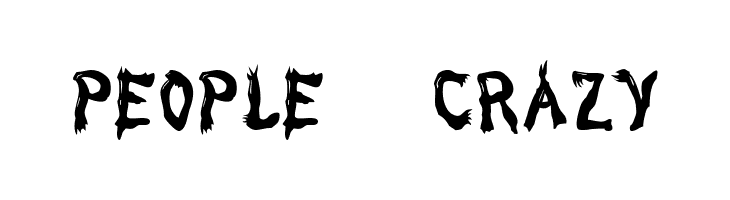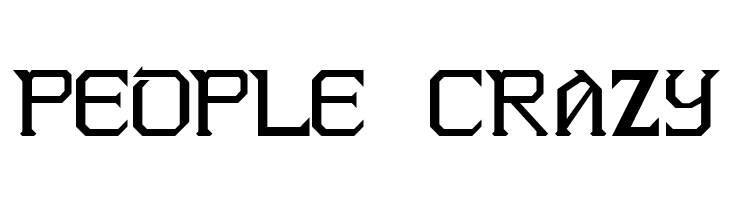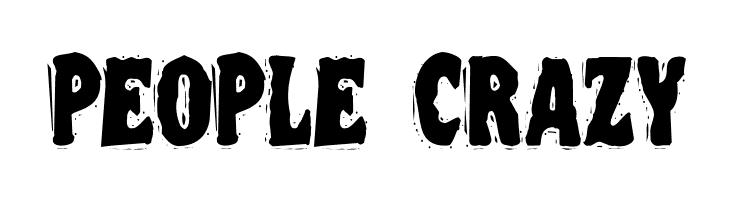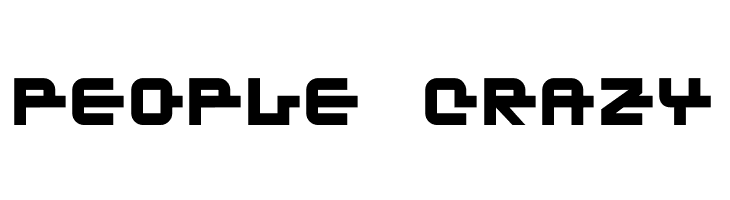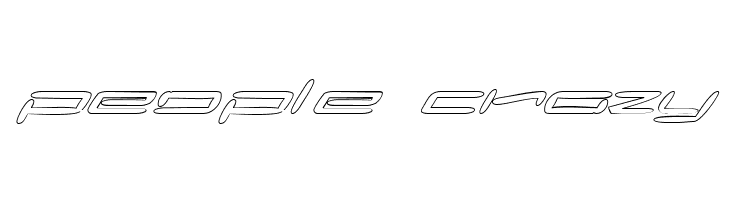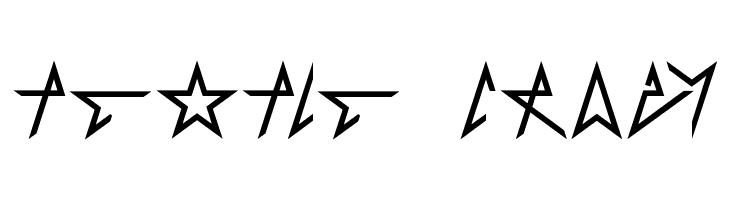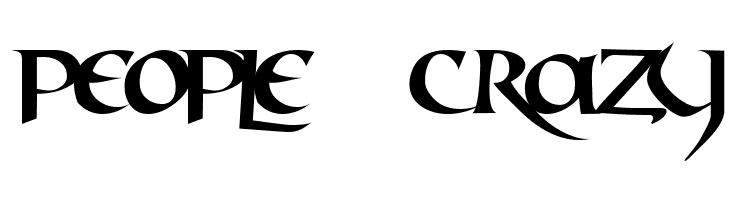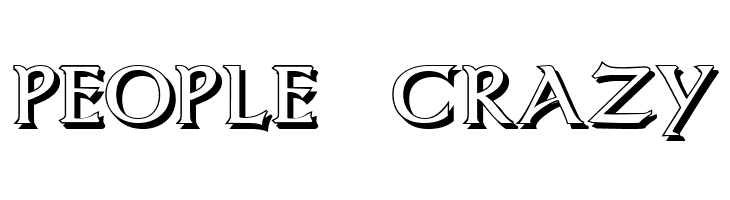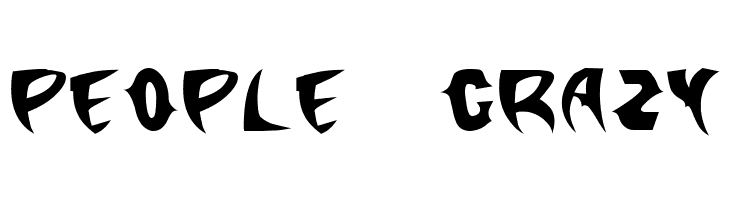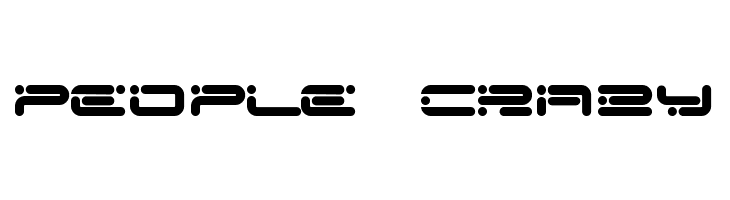
A futuristic, geometric font with bold, layered lines.
A spooky, flame-like font with jagged edges and a mysterious style.
A bold, fragmented font with a shattered, edgy appearance.
A futuristic, circuit-inspired font with bold geometric shapes and intricate line work.
A bold, dripping font ideal for horror-themed designs.
A bold, angular font with a futuristic and edgy design.
A bold, gothic-inspired font with sharp, angular lines and dramatic serifs.
A bold, shadowed serif font with a dramatic and elegant style.
A bold, expanded italic font with a dynamic and modern style.
A bold, angular font with a gothic-inspired style, perfect for dramatic headlines.
A bold, cinematic font with a vintage film reel aesthetic.
A bold, geometric font with a futuristic and industrial design.
A bold, geometric font with a futuristic, digital aesthetic.
A bold, edgy font with sharp, jagged edges and a distressed style.
A bold, futuristic font with angular, oblique letterforms.
A bold, slanted font with tight spacing and a modern, energetic style.
A bold, angular font with a futuristic and industrial design.
A bold, geometric font with a futuristic design, featuring parallel lines and sharp angles.
A bold, dripping font perfect for horror themes.
A distressed, gothic-style font with a bold, grunge appearance.